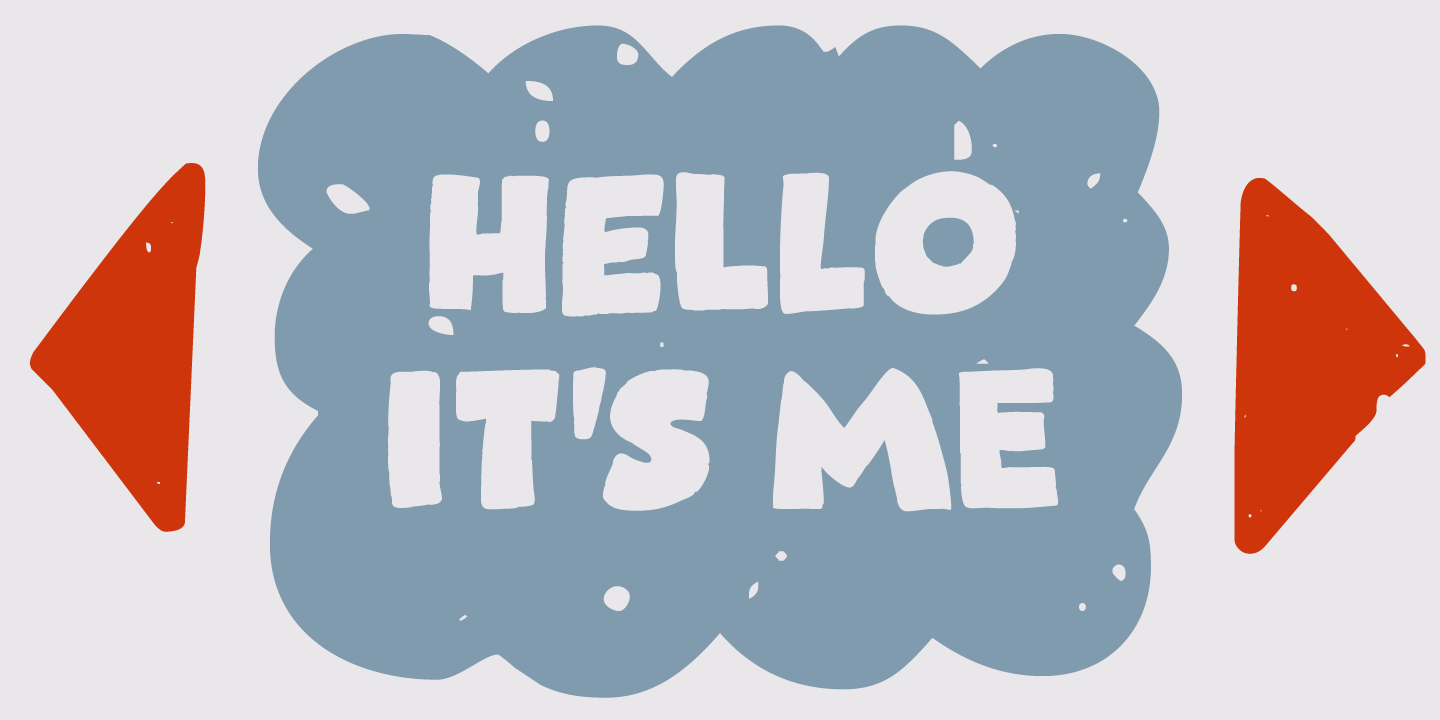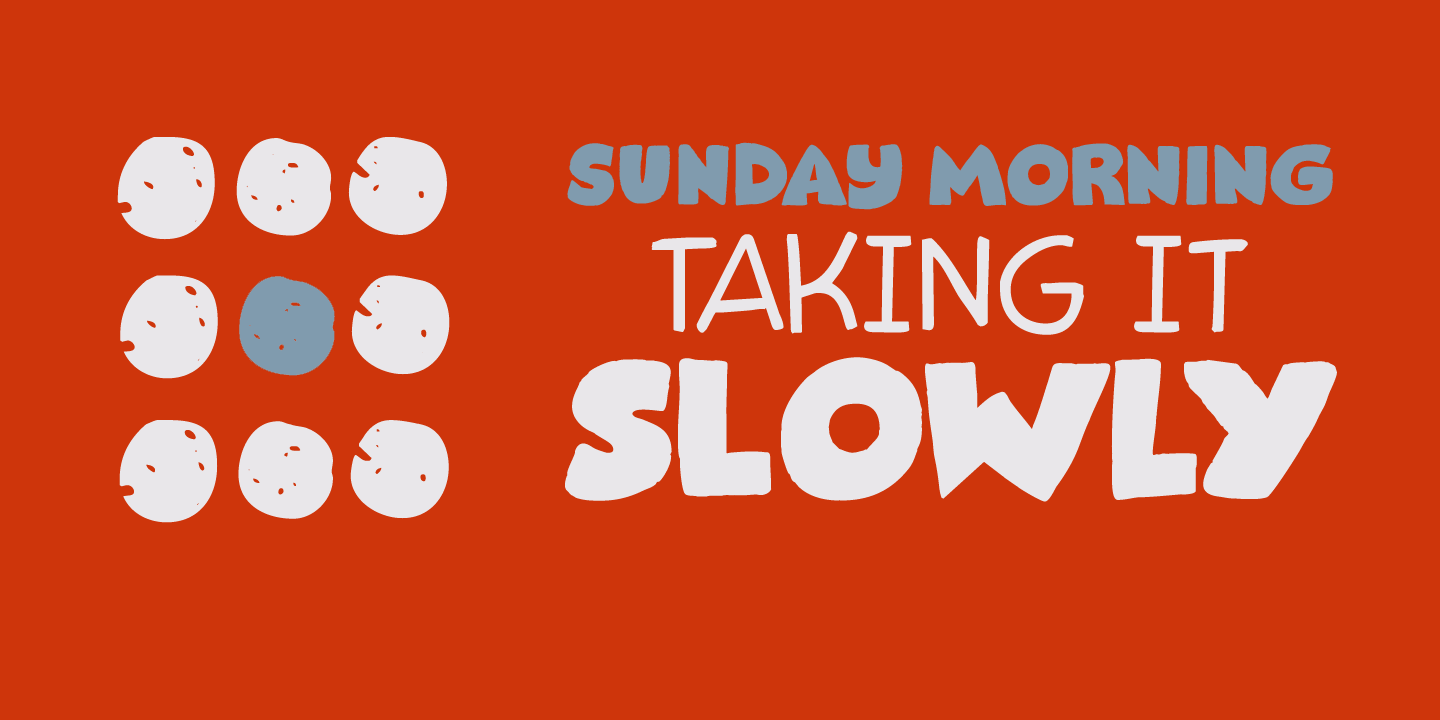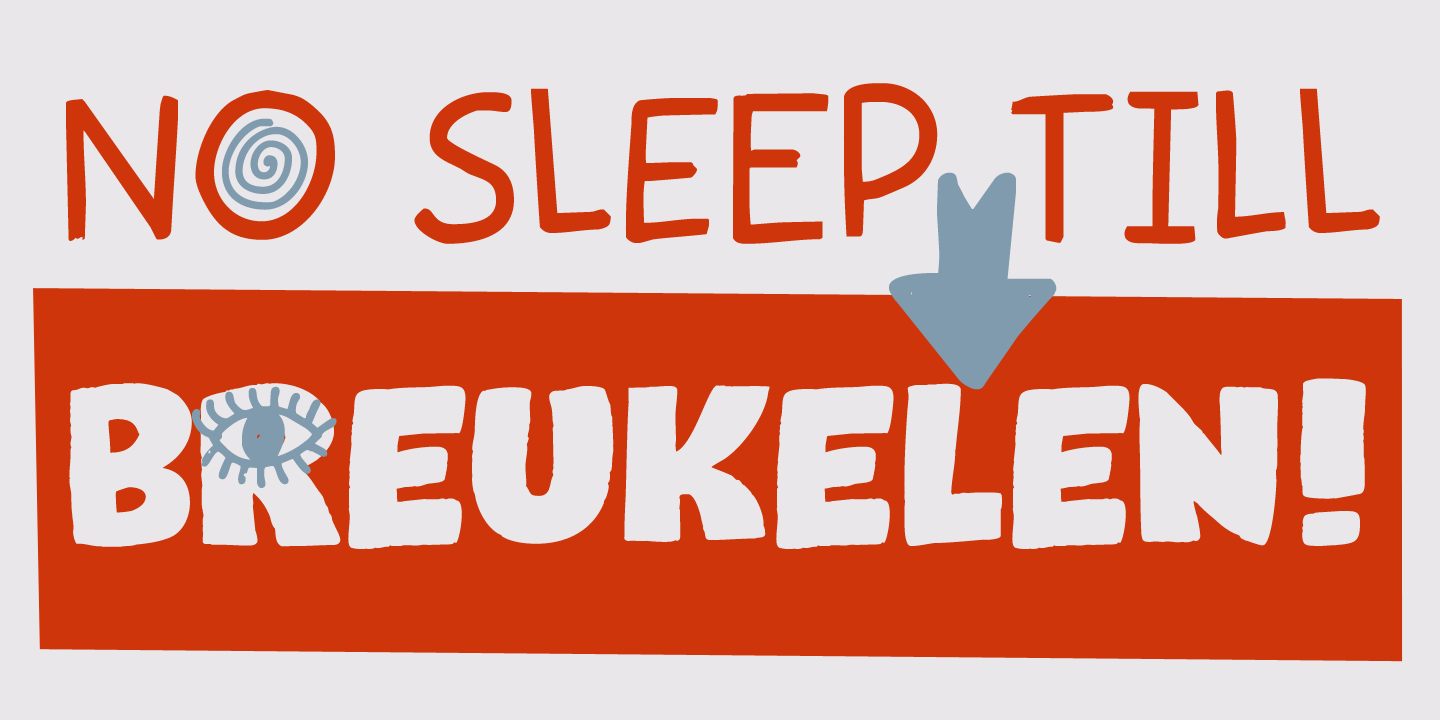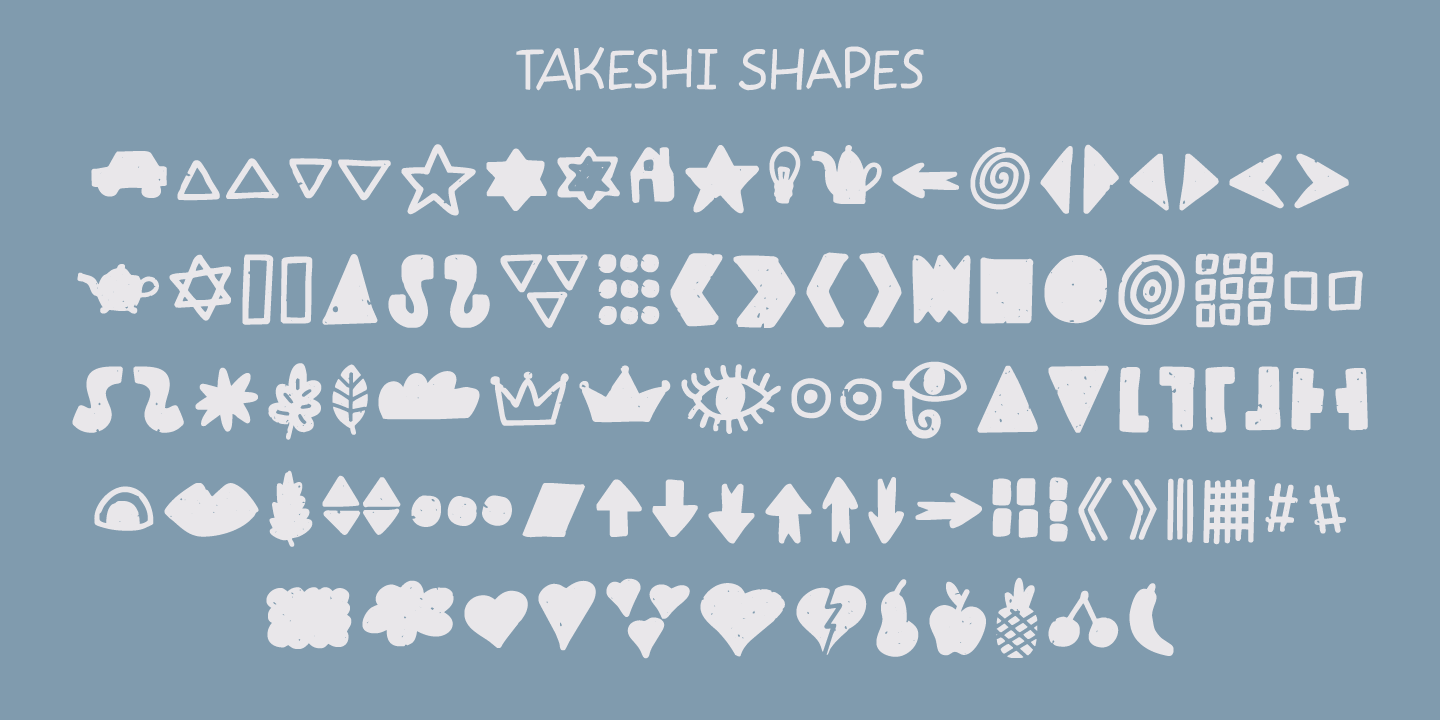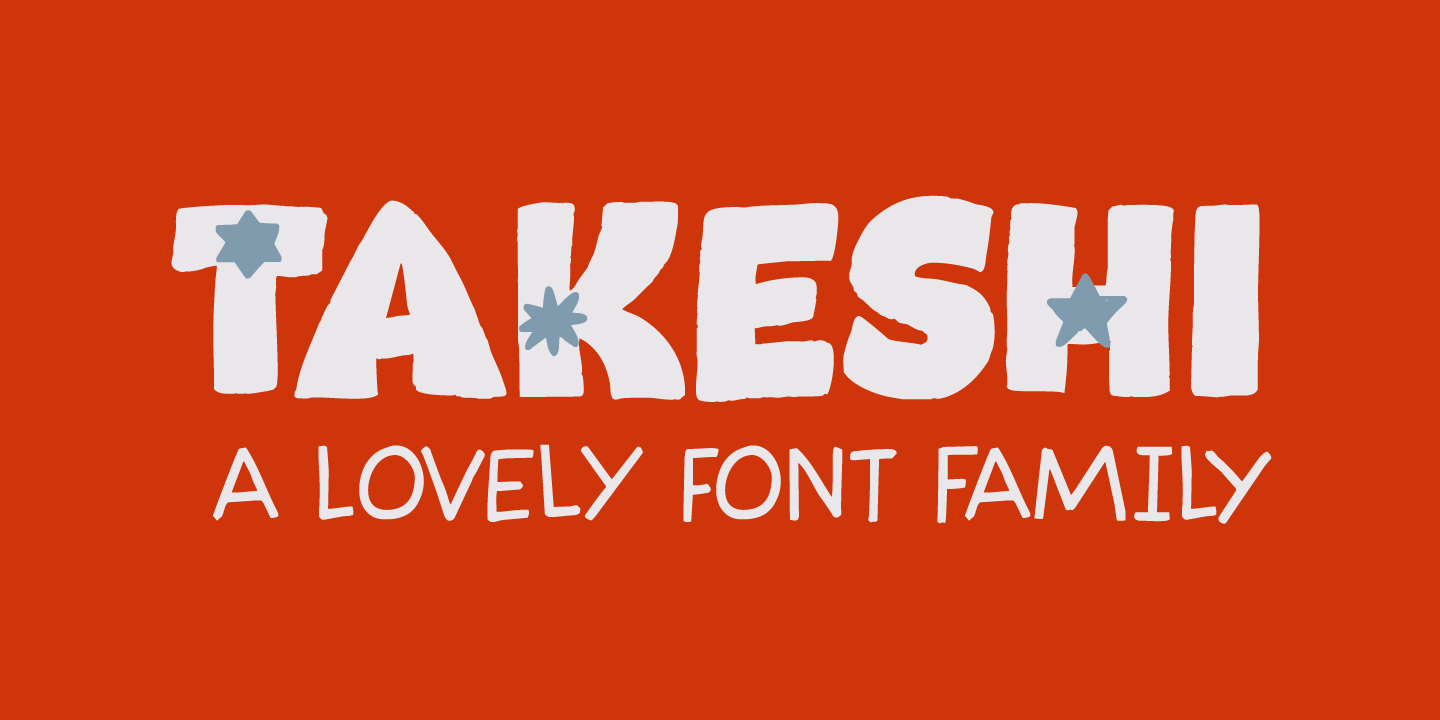
About Takeshi
I just finished book 8 of The Expanse (by James S.A. Corey) and the name Takeshi popped up somewhere, so I decided to use it for this font family! Takeshi is a hand made set of fonts: a fat display font, a thinner complementary font and a doodle font.…